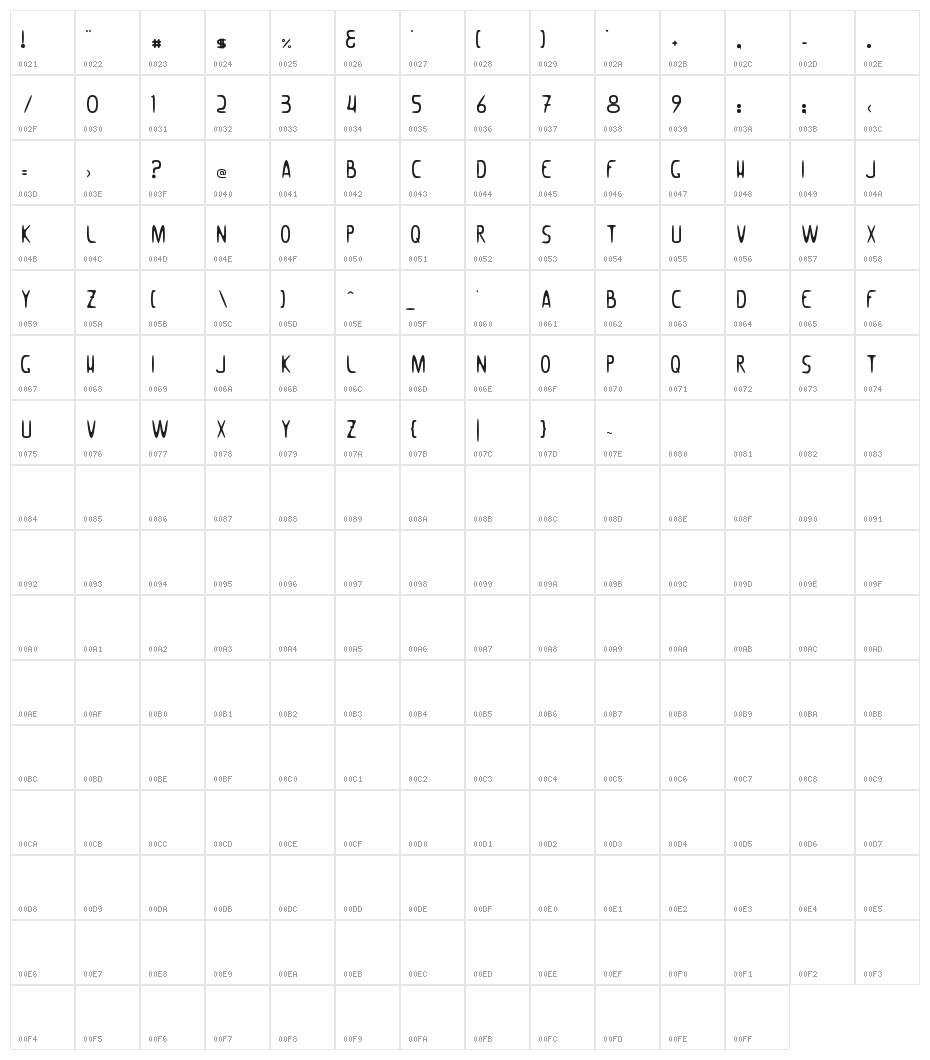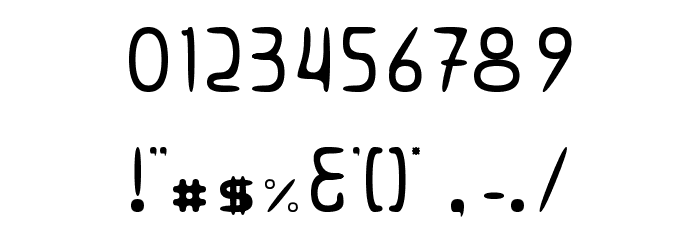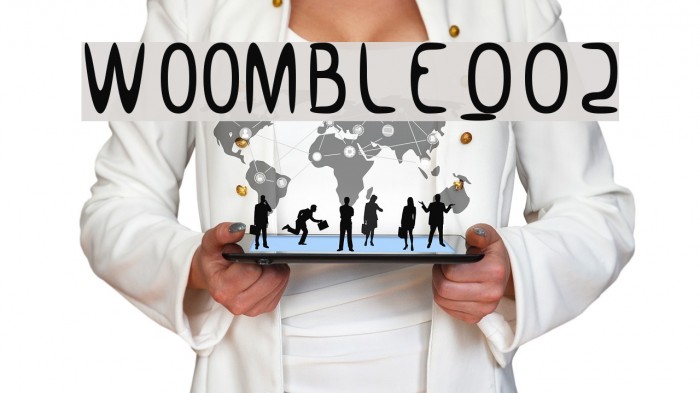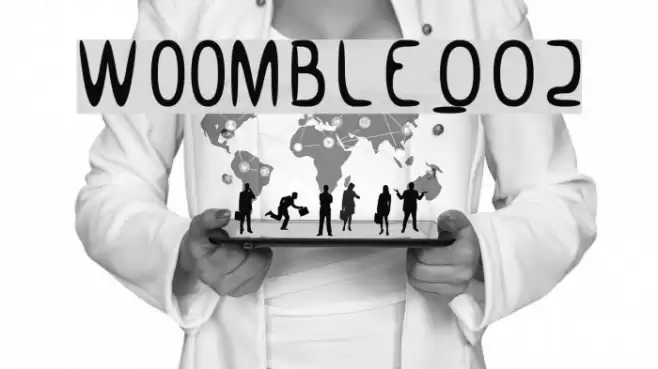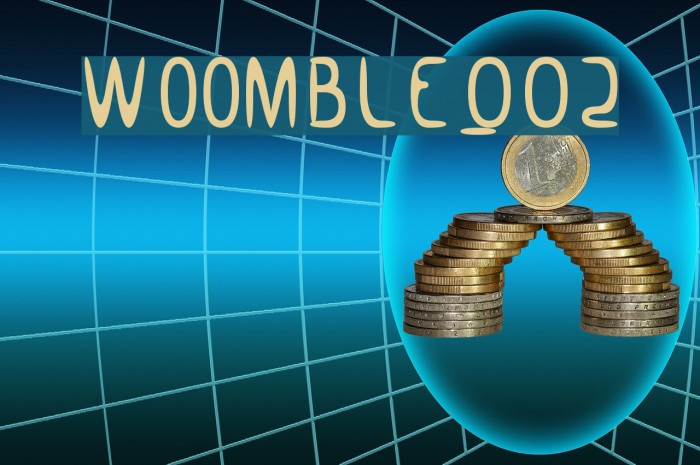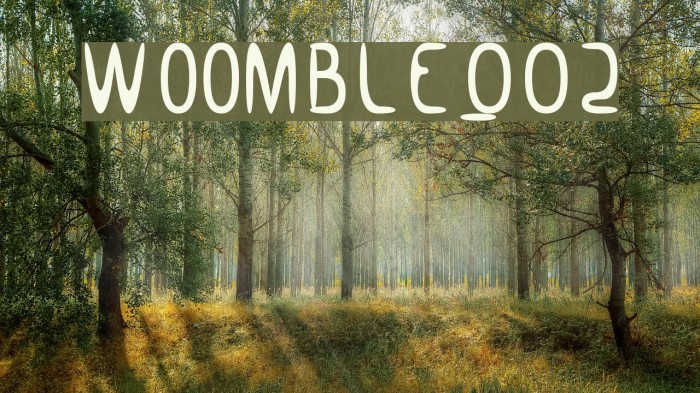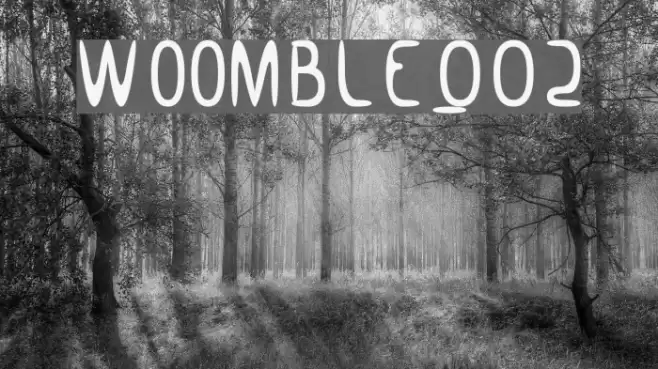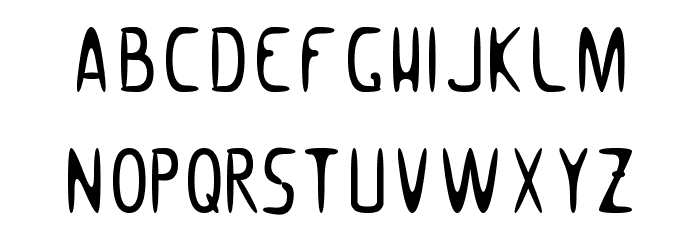
Woomble_002 Font
Woomble_002 Description
This font features a playful and quirky design with rounded edges and a slightly irregular form, giving it a hand-drawn appearance. The characters are bold and have a consistent stroke width, which adds to the casual and friendly feel. The uppercase and lowercase letters maintain a uniform height, while the numbers and special characters are designed to complement the overall style. The font's unique character shapes make it stand out, making it suitable for creative and informal projects.
| Overall Style | Playful |
| Proposed Projects | Ideal for children's books, greeting cards, playful branding, and casual posters. |